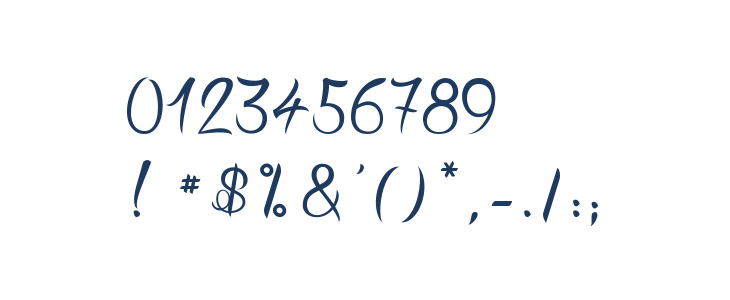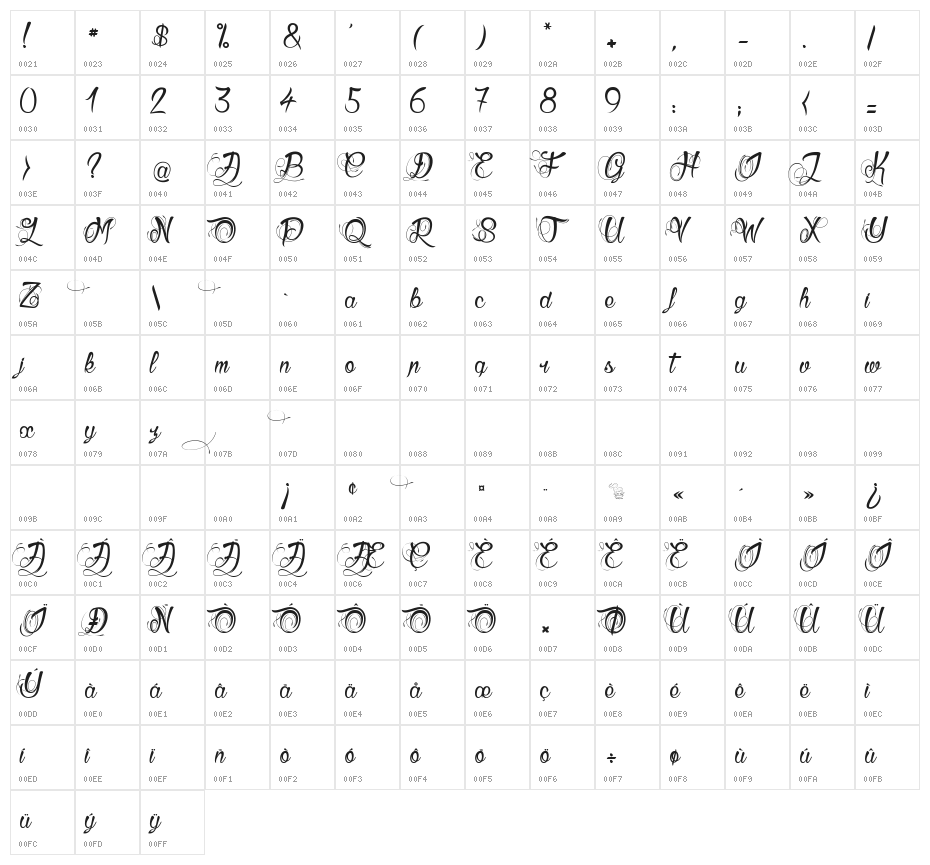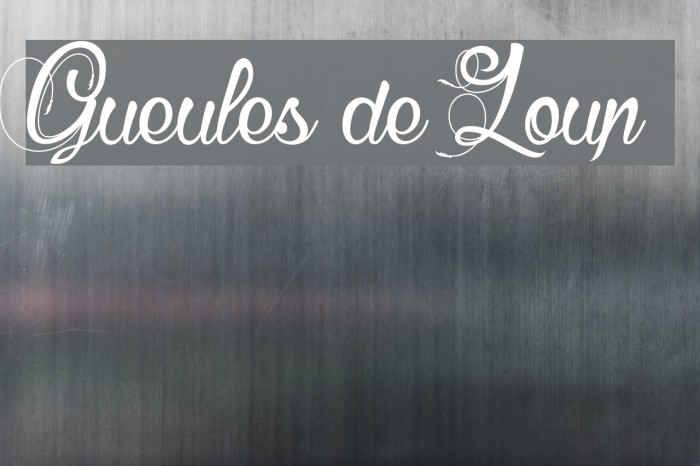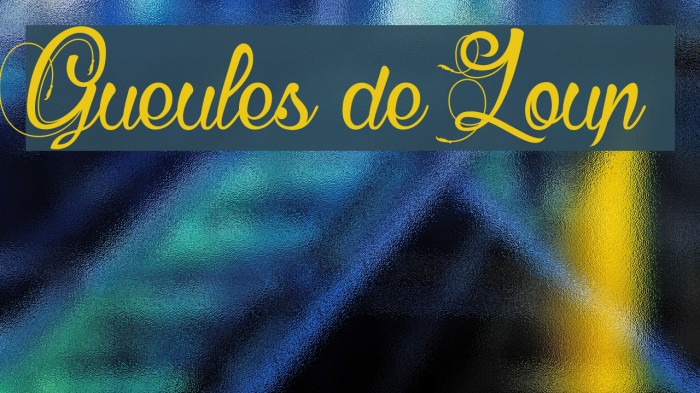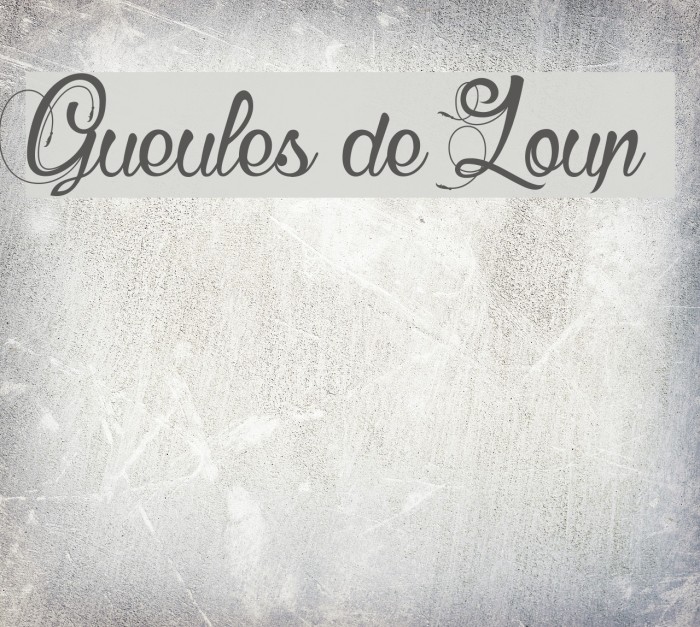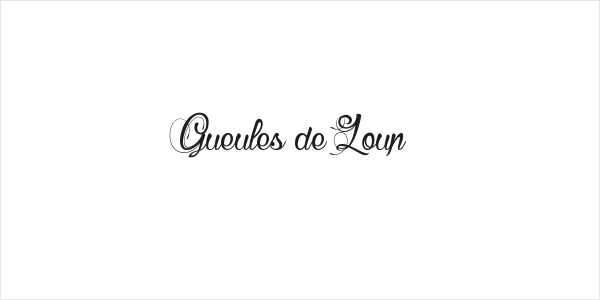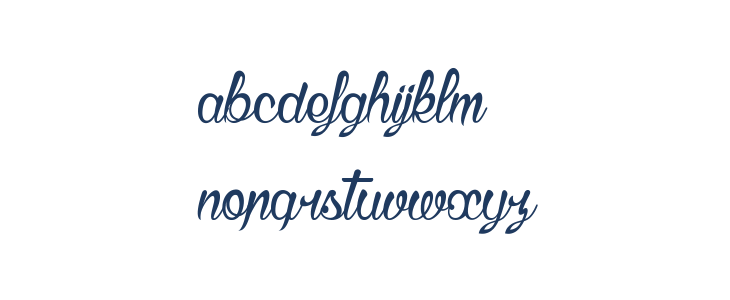
Gueules de Loup Font
Gueules de Loup Description
This font exudes elegance and sophistication with its intricate and flowing script style. The uppercase letters are adorned with elaborate swirls and flourishes, creating a sense of grandeur and formality. The lowercase letters maintain a cursive style, offering a more subdued yet still decorative appearance. The numerals are consistent with the overall script design, featuring gentle curves and a slightly italicized form. Special characters are crafted with the same attention to detail, ensuring a cohesive look across all elements. This font is perfect for projects that require a touch of elegance and artistic flair.